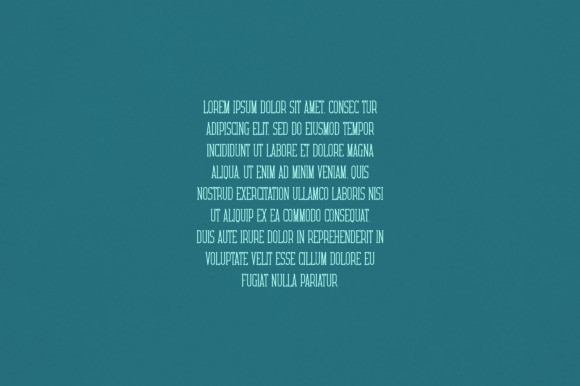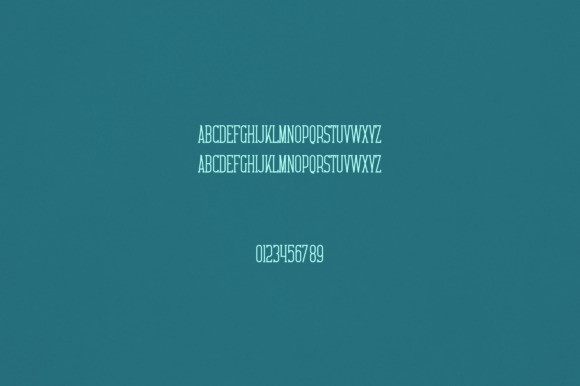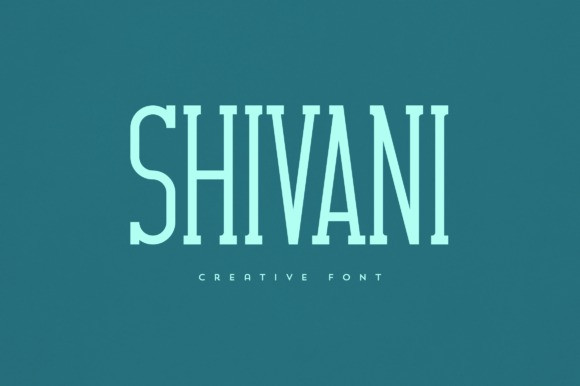
Shivani Font
Shivani Font is an elegant and versatile display font that will make your typography truly unique! It will enchant every logo, branding, headline, or plain text!
Classification: Display Fonts, Slab Serif Fonts